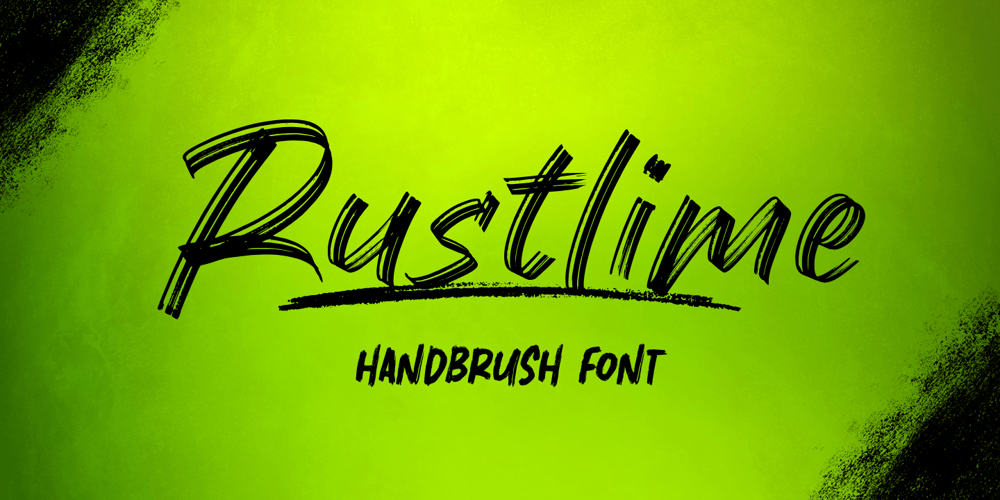
Rustlime Brush Font Family was designed by Muhamad Yusron Billah and published by Sronstudio. Rustlime Brush contains 1 styles and family package options. Rustlime Brush is a bold and energetic handbrush font that adds a raw, artistic vibe to your designs. Its textured strokes and dynamic style make it perfect for posters, logos, packaging, and anything that needs a bold statement. Let Rustlime Brush bring your creative ideas to life!Included: Upper & Lowercase Numeral & Punctuation PUA Encoded Multilingual support Simple Installation Work both on Mac and Windows Thank you very much ๐